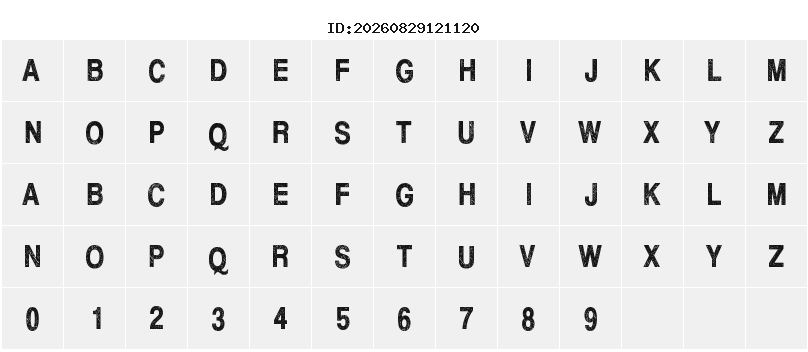
This side up.ttf is a modern, elegant sans-serif font designed for ultimate readability and visual harmony. Perfect for branding, headlines, web design, and print materials.